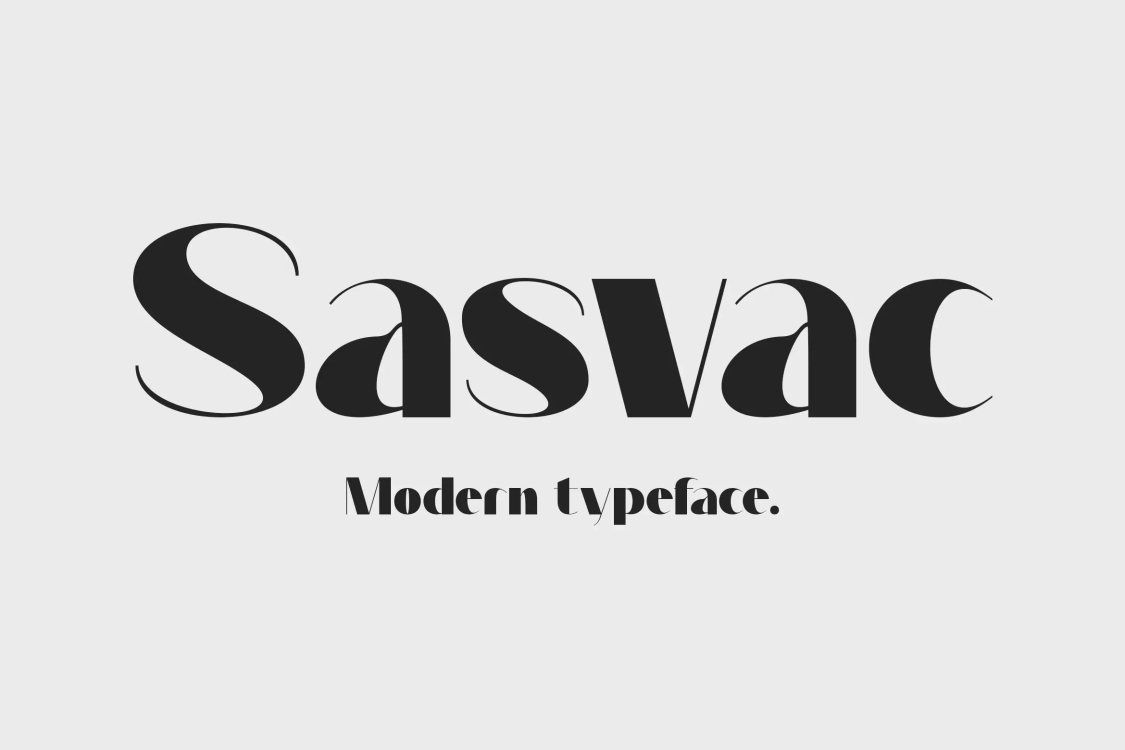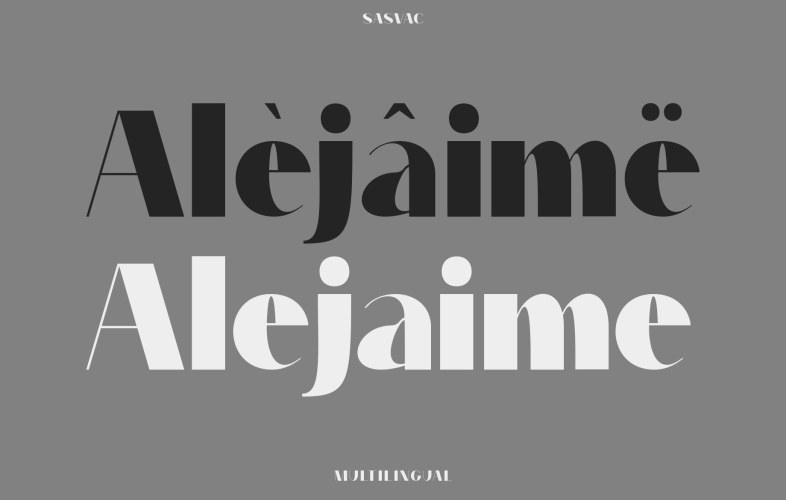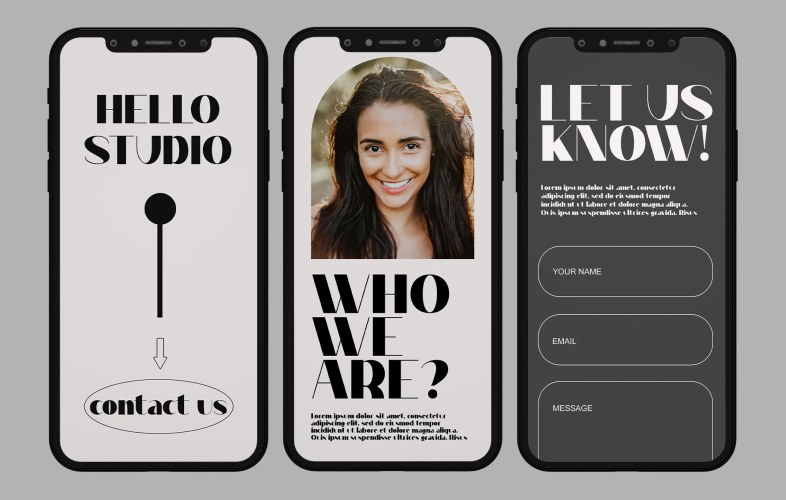
Sasvac Font
Sasvac is an modern sans serif font that will bring your projects a touch of luxury and style. It’s the perfect match for logotypes, branding, wedding monograms and invitations, blog headlines, and much more. Flip through all the previews and get inspired by this font.
Sasvac Font is a Serif Fonts font that brings a professional and versatile look to your projects. Sasvac is an modern sans serif font that will bring your projects a touch of luxury and style.